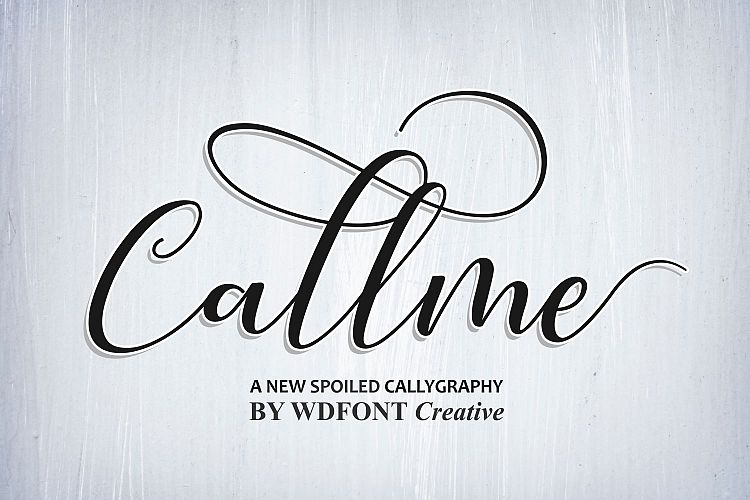
Callme Script Font
A new calligraphy script typeface by wdfont. With a distinctive curve, inside with some interesting features that are perfect for a feminine-style project. Introducing Callme Font. Callme Script Font is a script font with a smooth handwritten style. It’s perfect for branding projects, logos, product packaging, and more! It can be used simply as a stylish text overlay to any background image or anything requiring a sprinkle of elegance.